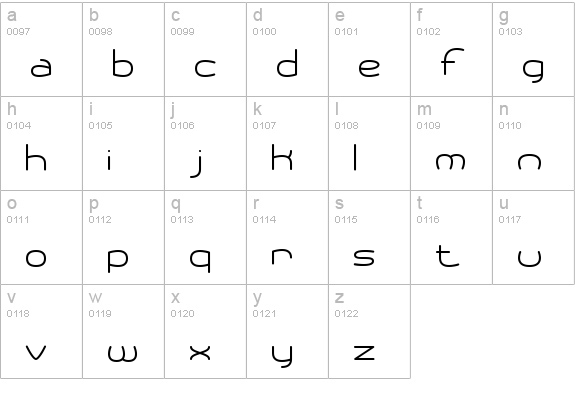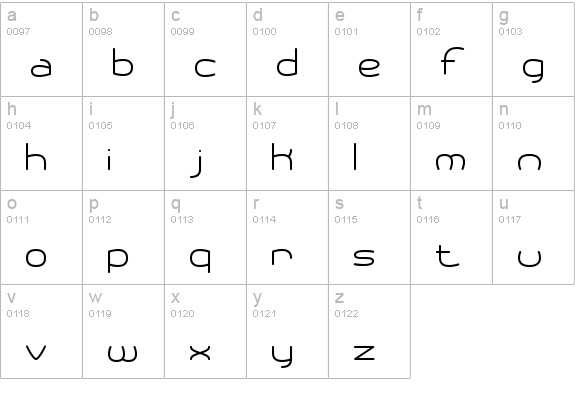
Pneumatics BRK font is a modern and stylish typeface that exudes a sense of innovation and sophistication. With its sleek lines and geometric shapes, this font is perfect for creating a contemporary look in your designs. Whether you're working on a logo, poster, or website, Pneumatics BRK font will add a touch of elegance and professionalism. The best part about Pneumatics BRK font is that it is completely free to download. You can get your hands on this versatile typeface at FontsMarket.com and start using it in your projects right away. Don't miss out on the opportunity to add Pneumatics BRK font to your font library and elevate your designs to the next level.